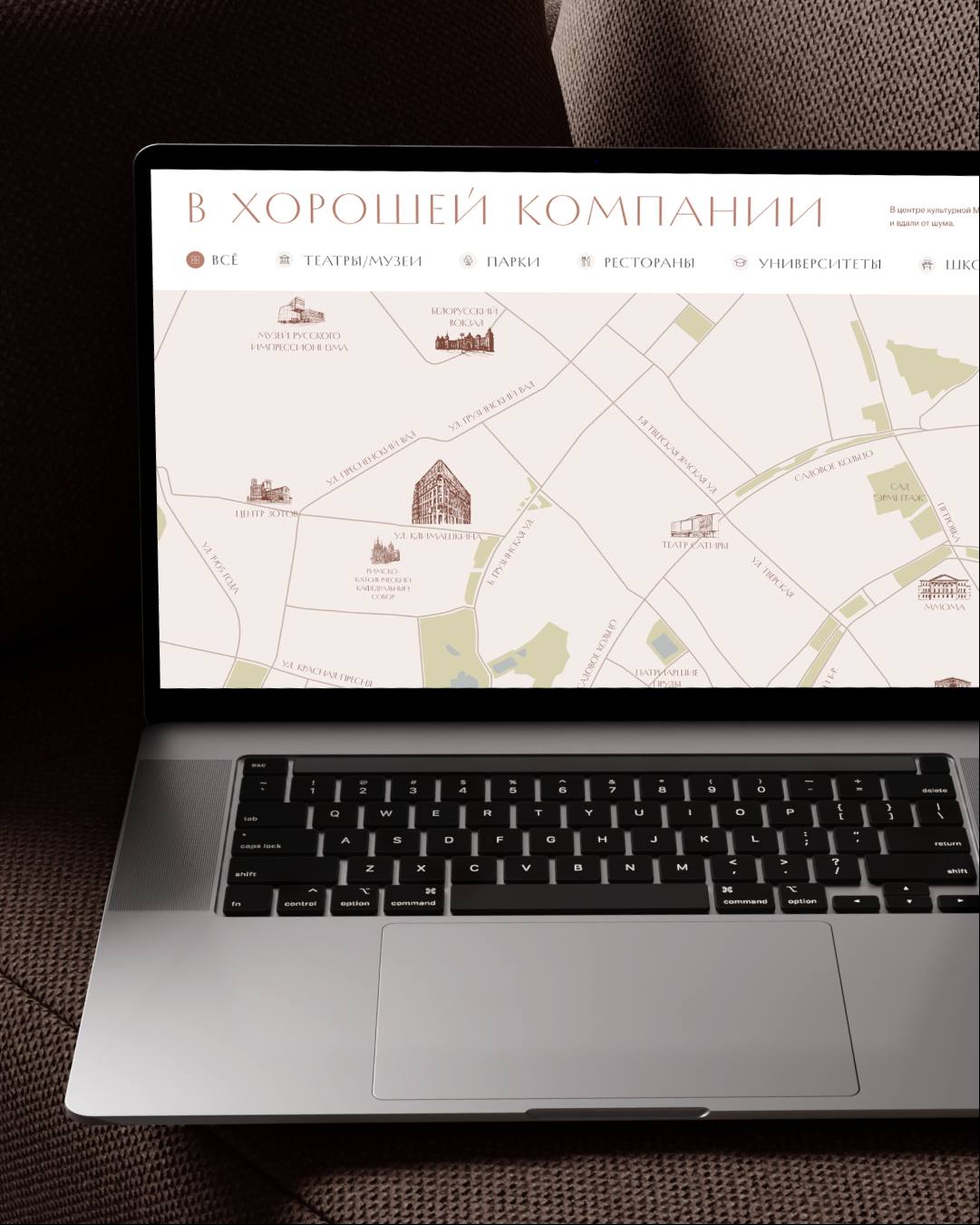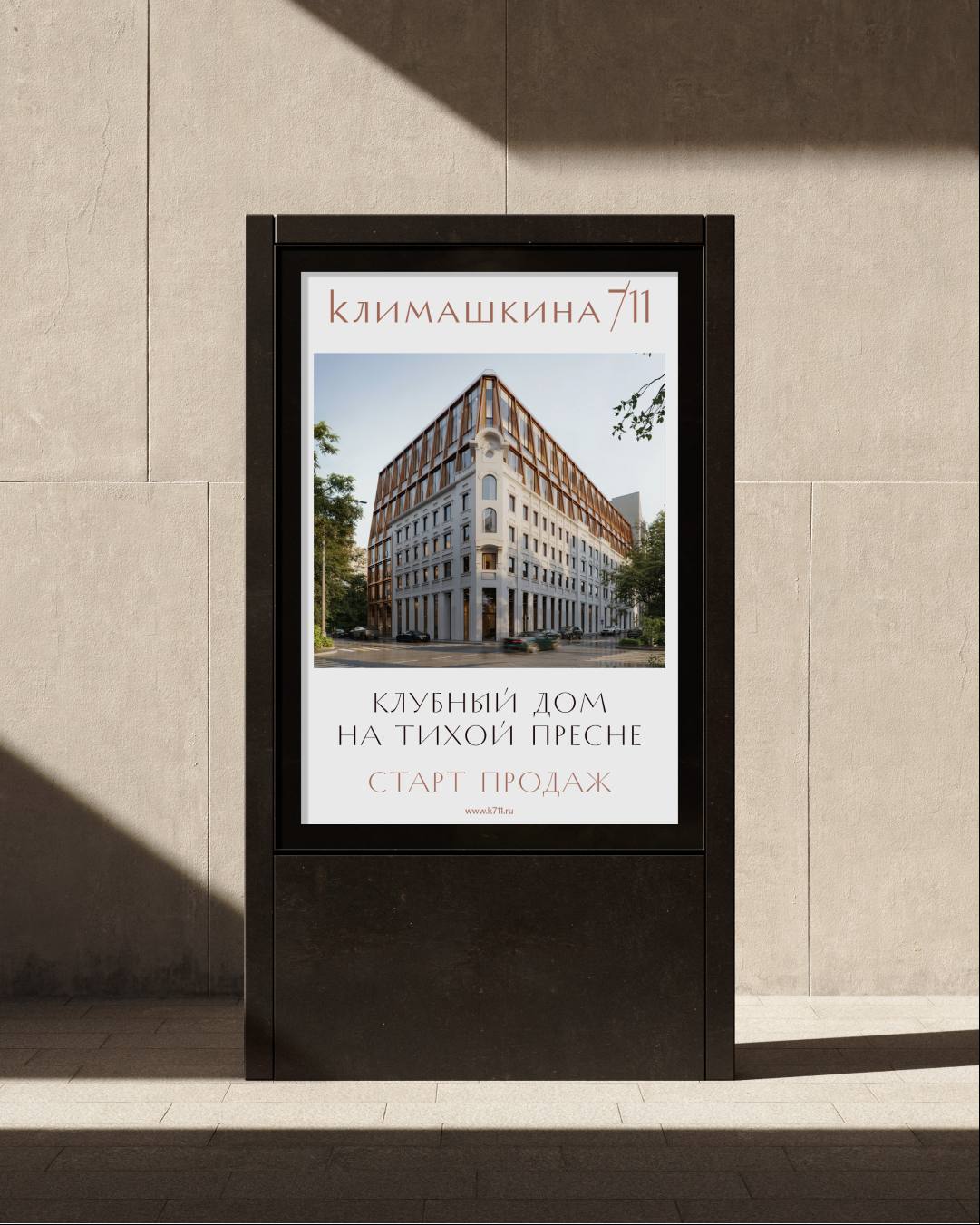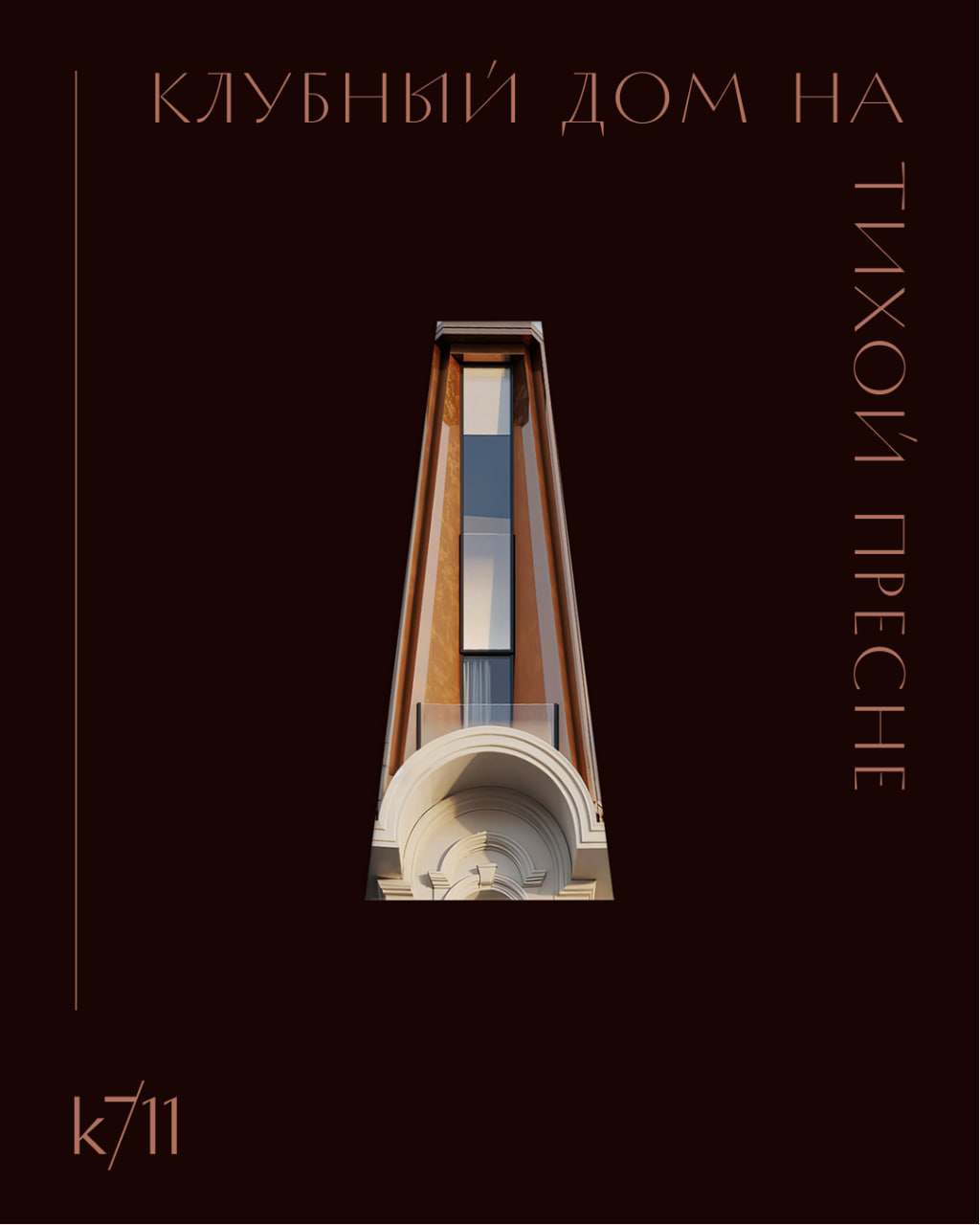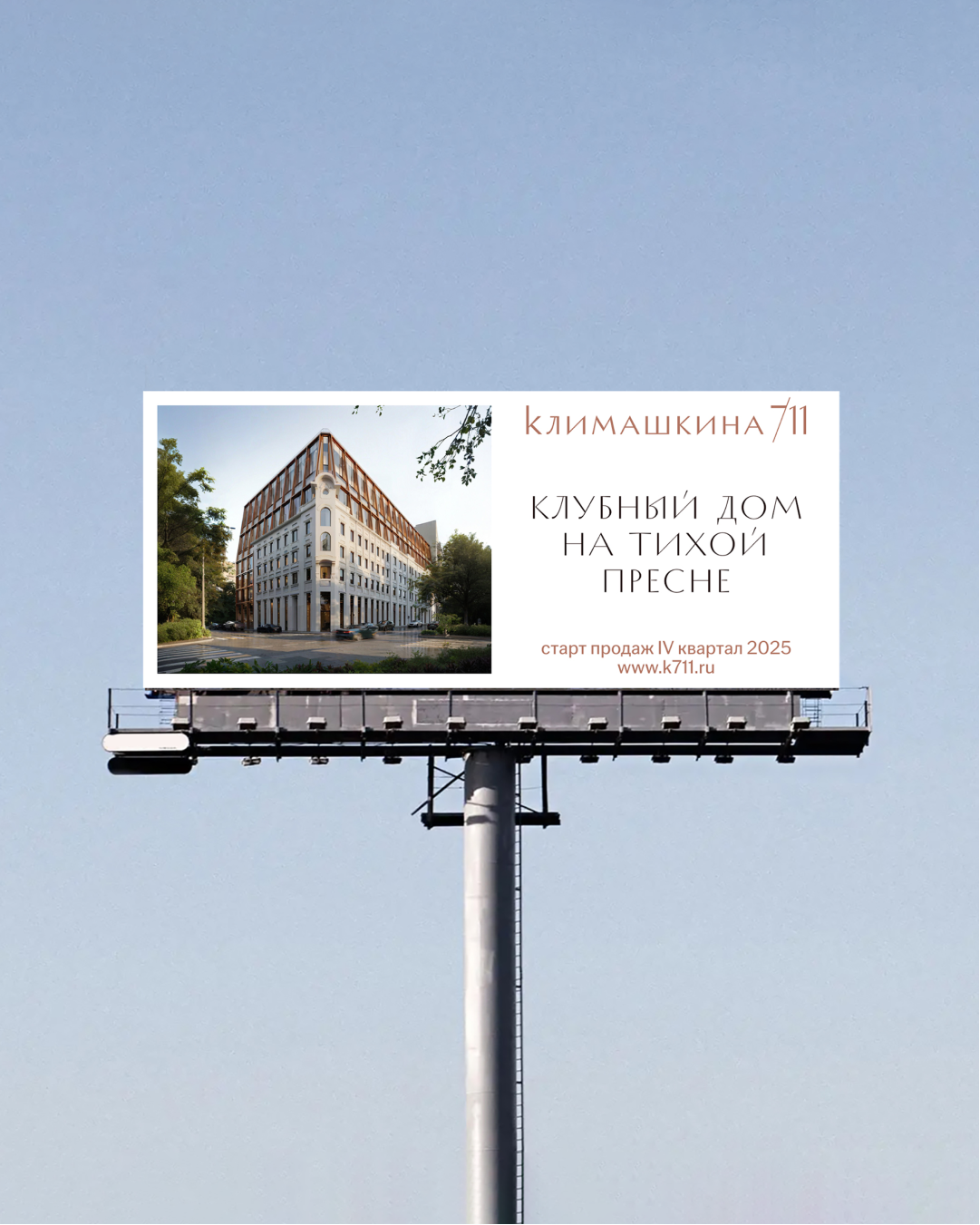
Private club house Klimashkina k7/11
The k7/11 project, under the MR Private brand from developer MR Group, comprises 46 exclusive residences united by a shared philosophy of privacy, status, and architectural authenticity.
The building is based on the preserved wall of Moscow's first "skyscraper" from 1905, which has become a symbol of the continuity of time and respect for the local history.
10At GLYPH, we created a visual identity that reflects the spirit of the private clubhouse — restrained, profound, and architecturally precise.
The k7/11 naming – an alphanumeric combination – is one of the leading trends in the international real estate market. The logo is easy to understand, emphasizing the project's ascetic elegance. The typography alludes to the balance of form and content. The main idea is the contrast between the opposites "sophistication/utility", "large/small." The color palette and signature patterns are inspired by the texture and geometry of Sergey Tchoban's architecture. The visual system makes k7/11 recognizable at every touchpoint: from digital to offline. Nothing extra – just character and idea.